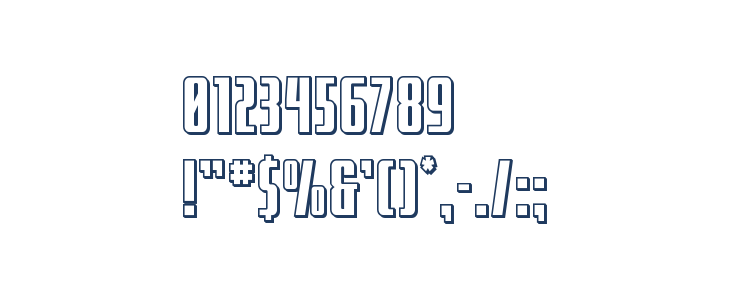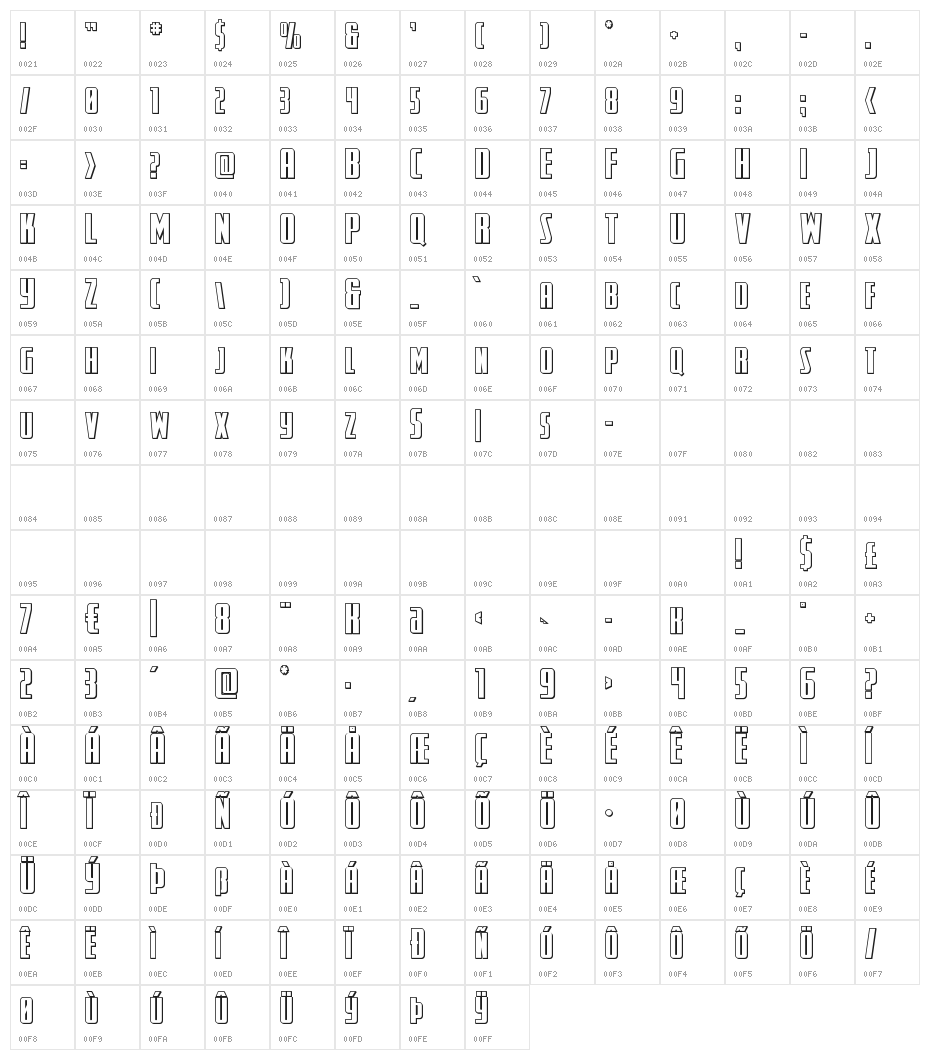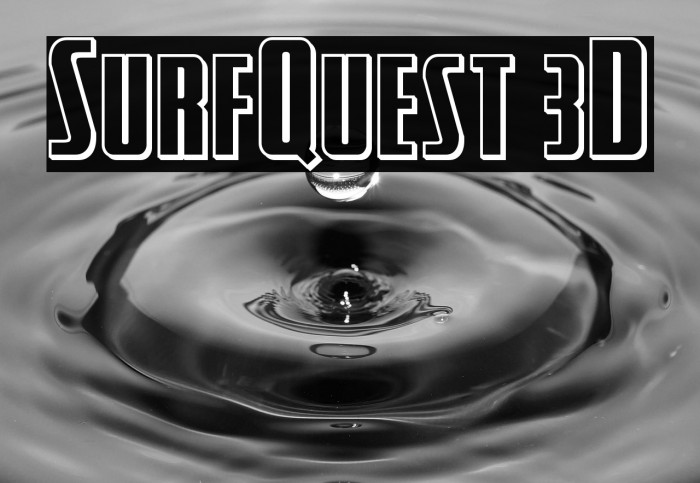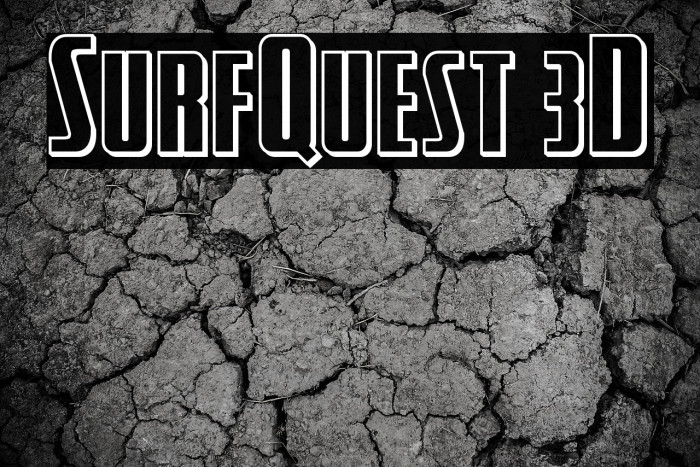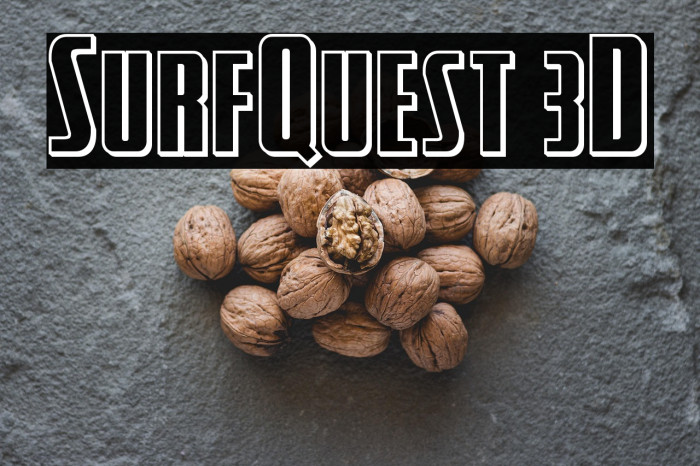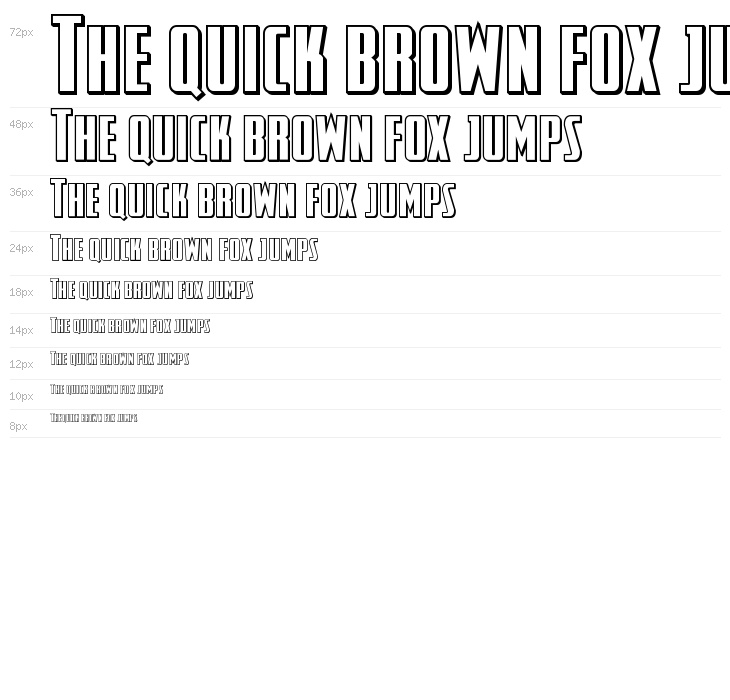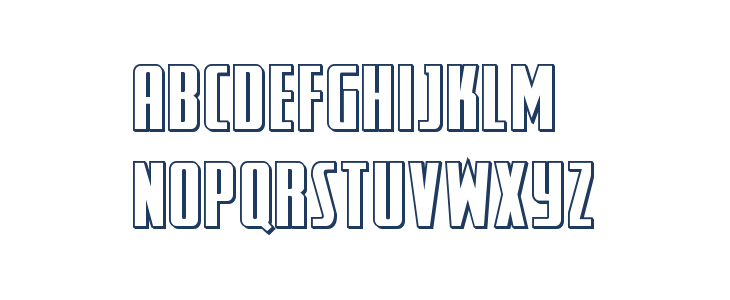
SurfQuest 3D Font
SurfQuest 3D Description
This font features a bold, three-dimensional appearance with a strong outline that gives each character a distinct, impactful look. The uppercase letters are uniformly styled with a geometric precision, while the lowercase letters maintain the same boldness and clarity. Numbers and special characters are designed to match the overall aesthetic, ensuring consistency across all elements. The font's style is reminiscent of retro or vintage signage, making it ideal for projects that require a standout, eye-catching typeface.
| Proposed Projects | Ideal for retro-themed posters, signage, branding, and any project needing a bold, eye-catching typeface. |